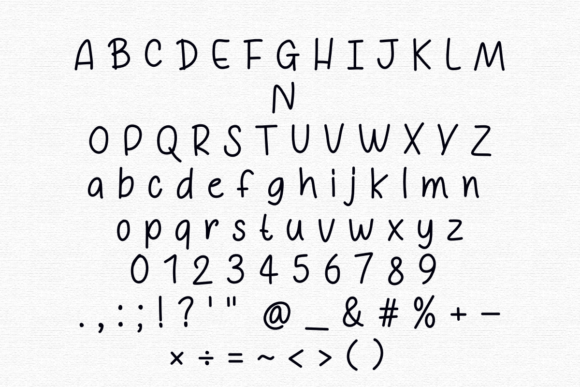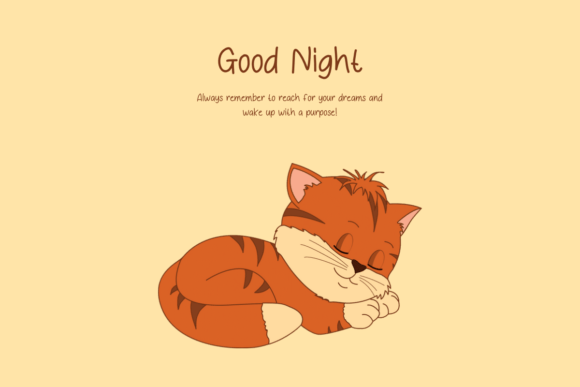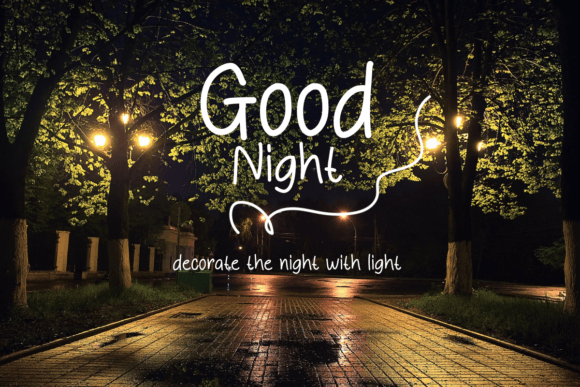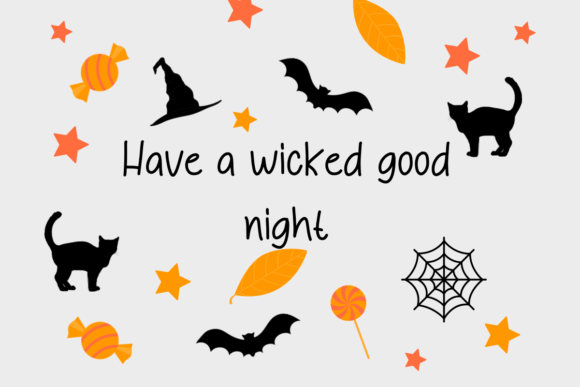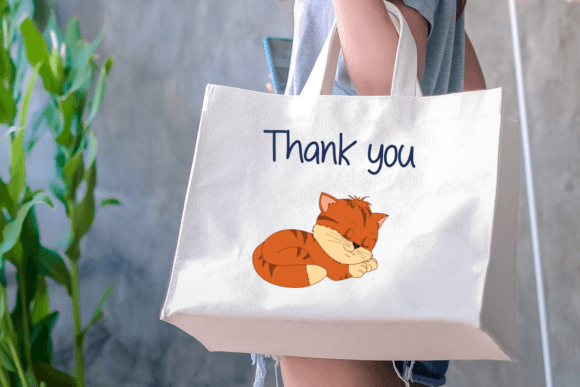
Introducing Good Night Font: A Sweet and Friendly Handwritten Delight
Are you on the hunt for a font that adds a personal touch to your designs? Look no further than Good Night Font, a sweet and friendly handwritten font that’s perfect for a variety of creative projects. In this article, we’ll dive into the world of Good Night Font, exploring its features, uses, and benefits for designers and crafters alike.
What is Good Night Font?
Good Night Font is a beautiful, handwritten font that’s designed to bring a touch of warmth and personality to your designs. With its flowing lines and gentle curves, this font is perfect for creating a sense of comfort and approachability. Whether you’re looking to add a personal touch to your notes, diaries, or greeting cards, Good Night Font is the perfect choice.
Uses for Good Night Font
While Good Night Font is perfect for taking notes, writing a diary, or making greeting cards, its uses don’t stop there. This versatile font can be used for a wide range of designs, including:
- Banners: Create eye-catching banners with Good Night Font that’s sure to grab attention.
- Content: Add a personal touch to your blog posts, articles, and other written content with Good Night Font.
- Mugs: Design personalized mugs with Good Night Font that’s perfect for gifts or everyday use.
- Cards: Create beautiful greeting cards for special occasions, such as birthdays, holidays, and more.
- Shirts: Design custom t-shirts with Good Night Font that’s perfect for casual wear.
- Stationery: Add a touch of elegance to your stationery with Good Night Font.
- Social media posts: Use Good Night Font to create engaging social media posts that stand out from the crowd.
Benefits of Good Night Font
So why choose Good Night Font for your designs? Here are just a few benefits of using this amazing font:
- Personal touch: Good Night Font adds a personal touch to your designs, making them feel more approachable and relatable.
- Versatility: This font can be used for a wide range of designs, from notes and diaries to banners and social media posts.
- Elegance: Good Night Font has a elegant, handwritten feel that’s perfect for creating sophisticated designs.
- Easy to read: The clear, flowing lines of Good Night Font make it easy to read, even at small sizes.
Tips for Using Good Night Font
Here are a few tips for getting the most out of Good Night Font:
- Pair with other fonts: Good Night Font pairs well with other fonts, such as sans-serif fonts for a modern look or script fonts for a more elegant feel.
- Experiment with colors: Try out different colors with Good Night Font to find the perfect combination for your design.
- Use it sparingly: While Good Night Font is beautiful, it can be overwhelming if used too much. Use it sparingly to add a touch of elegance to your designs.